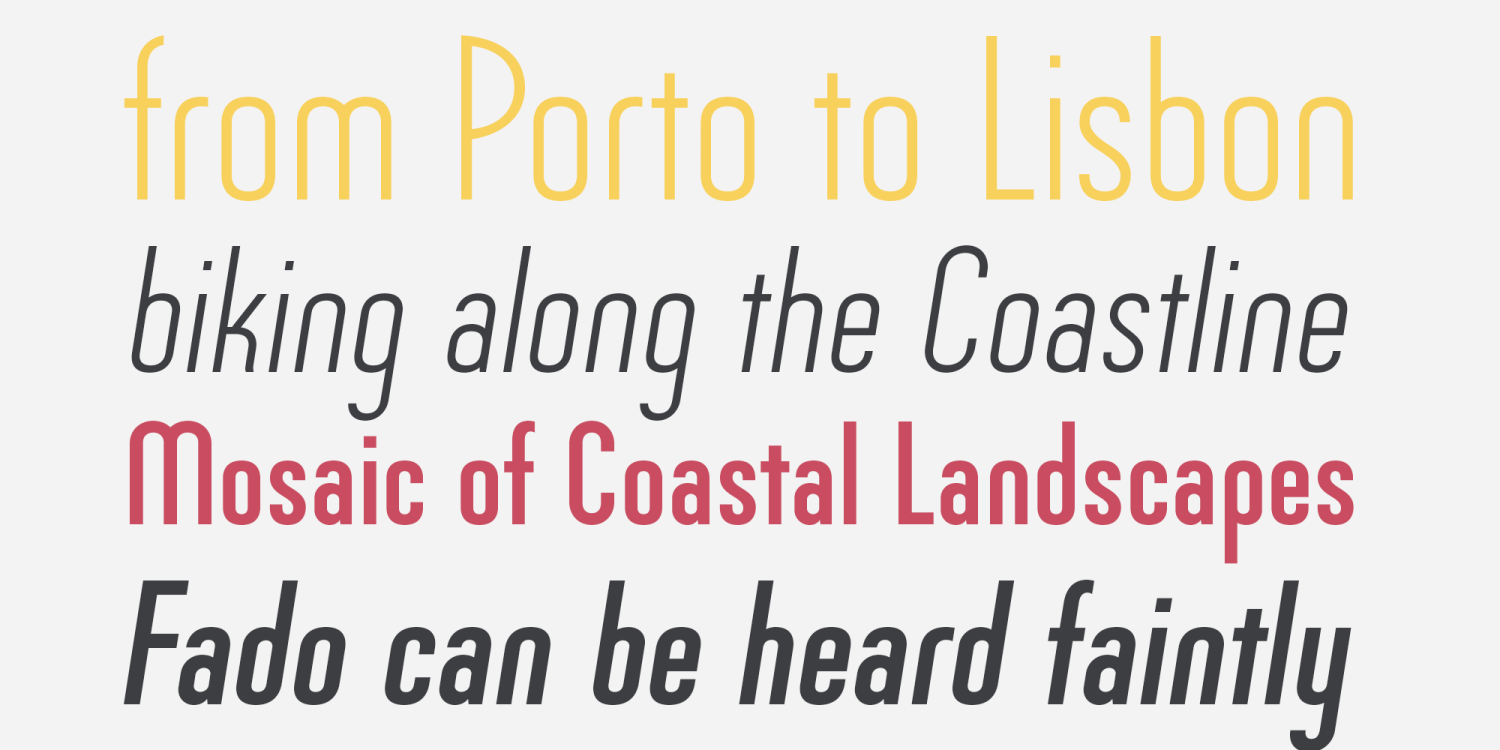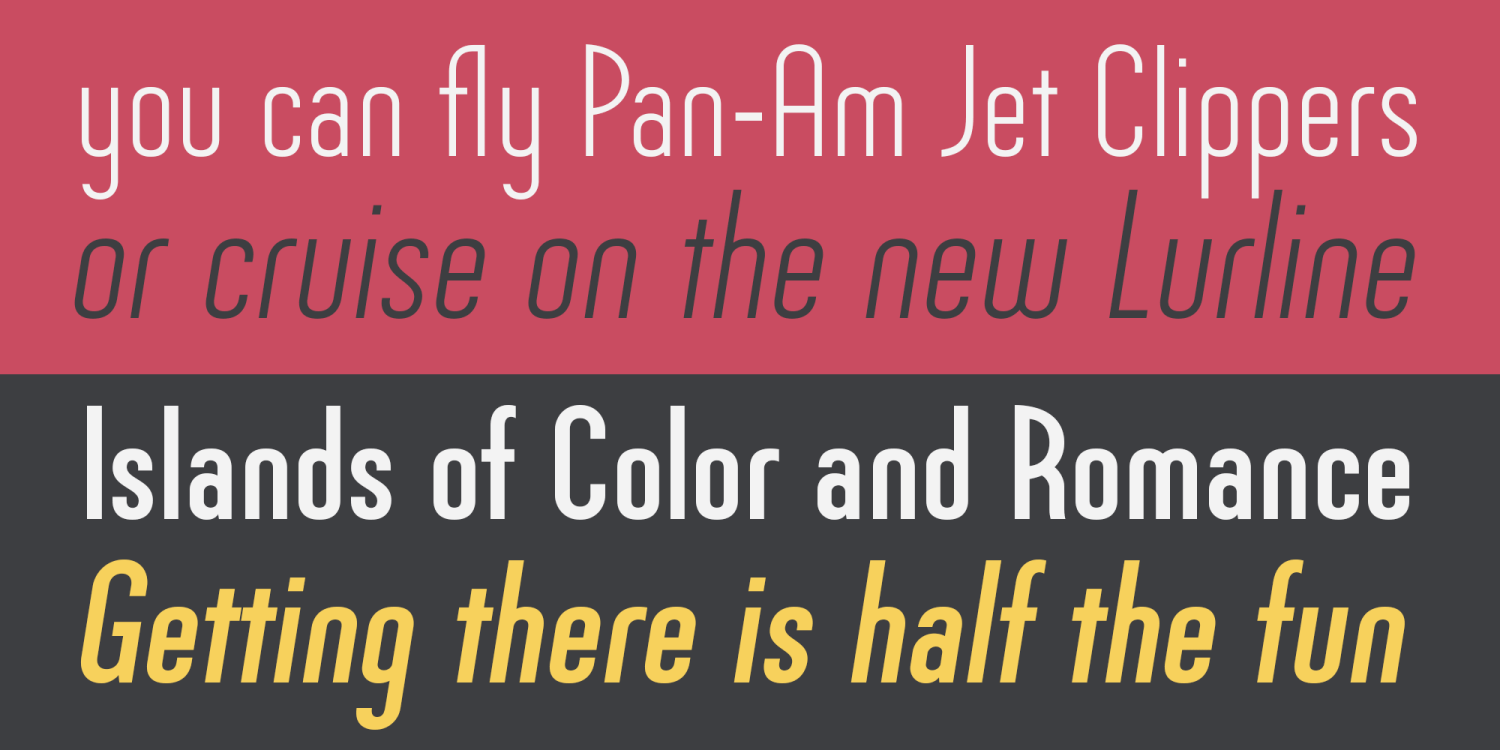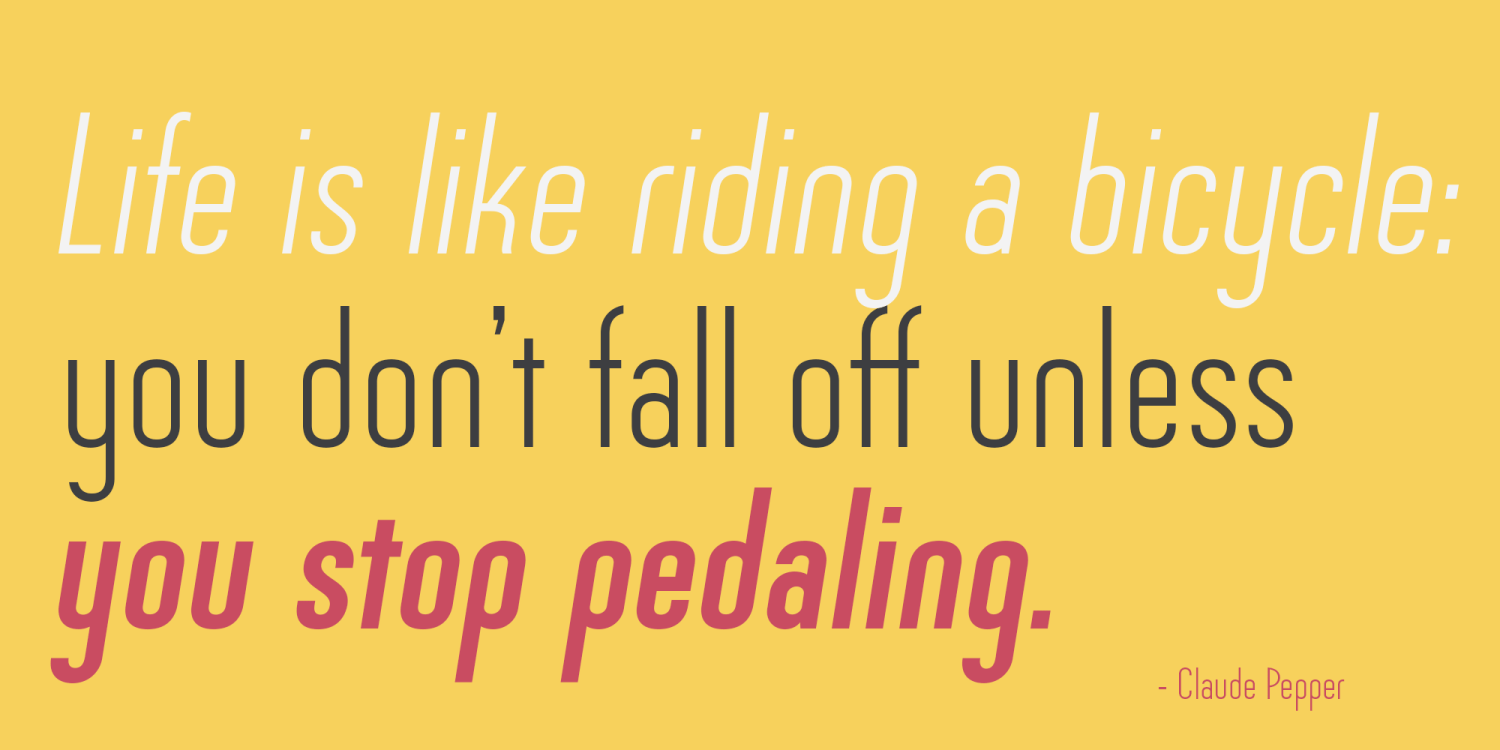
About Bicicleta
The Bicicleta family recaptures the ambiance of a bicycle journey I took many years ago along the Portuguese coast and embodies a vintage flair that appeals to me. A little reminiscing is always never a bad thing. The Bicicleta family is classic, cleans,…